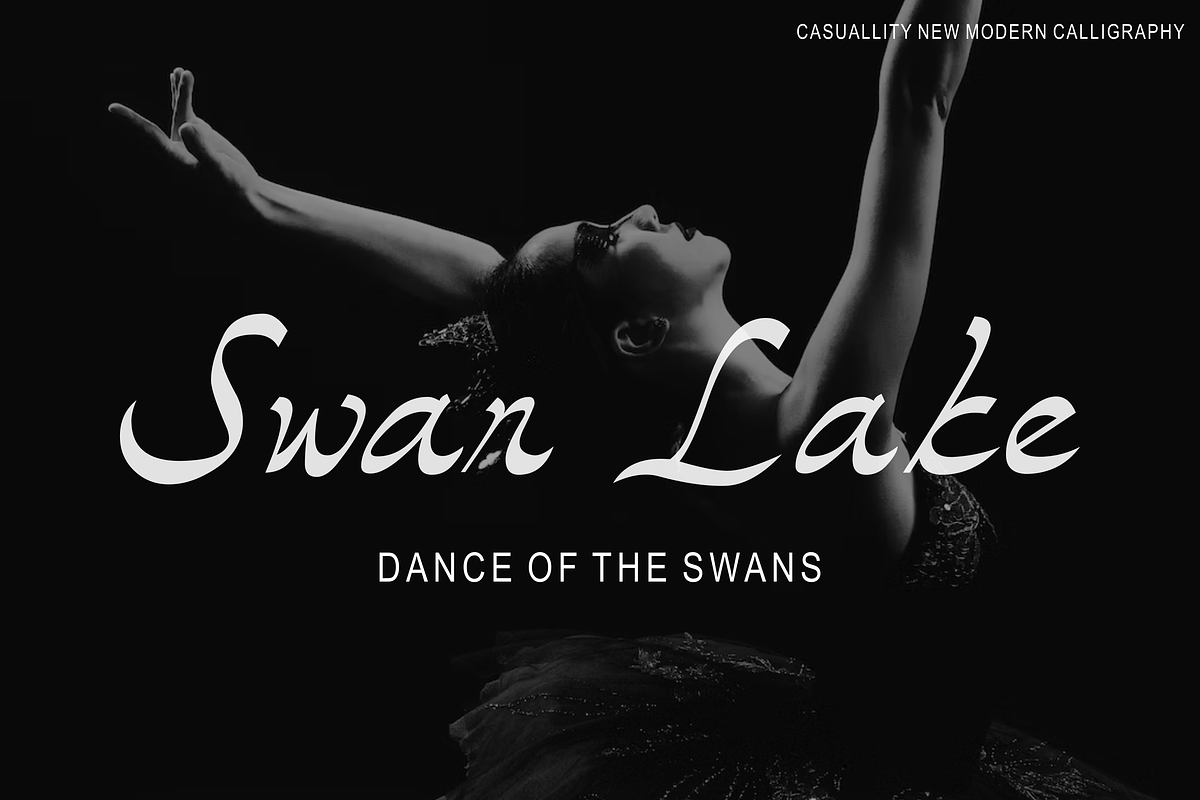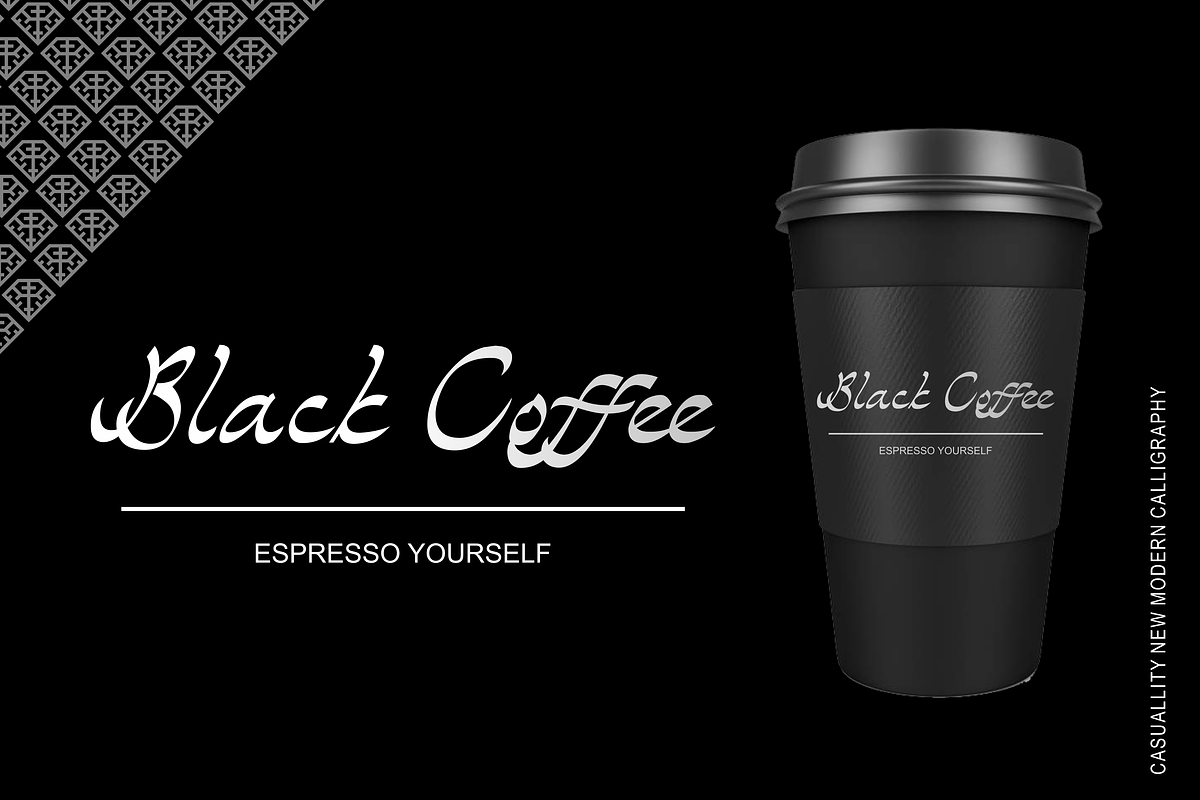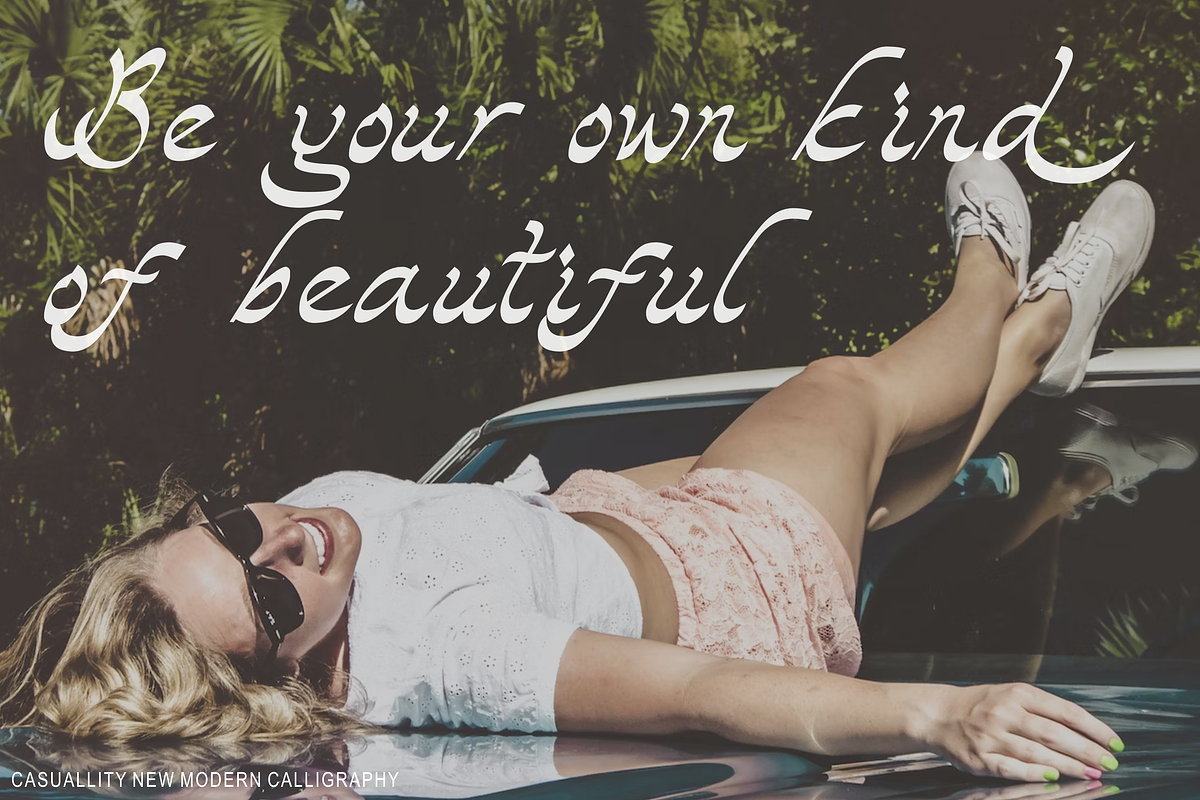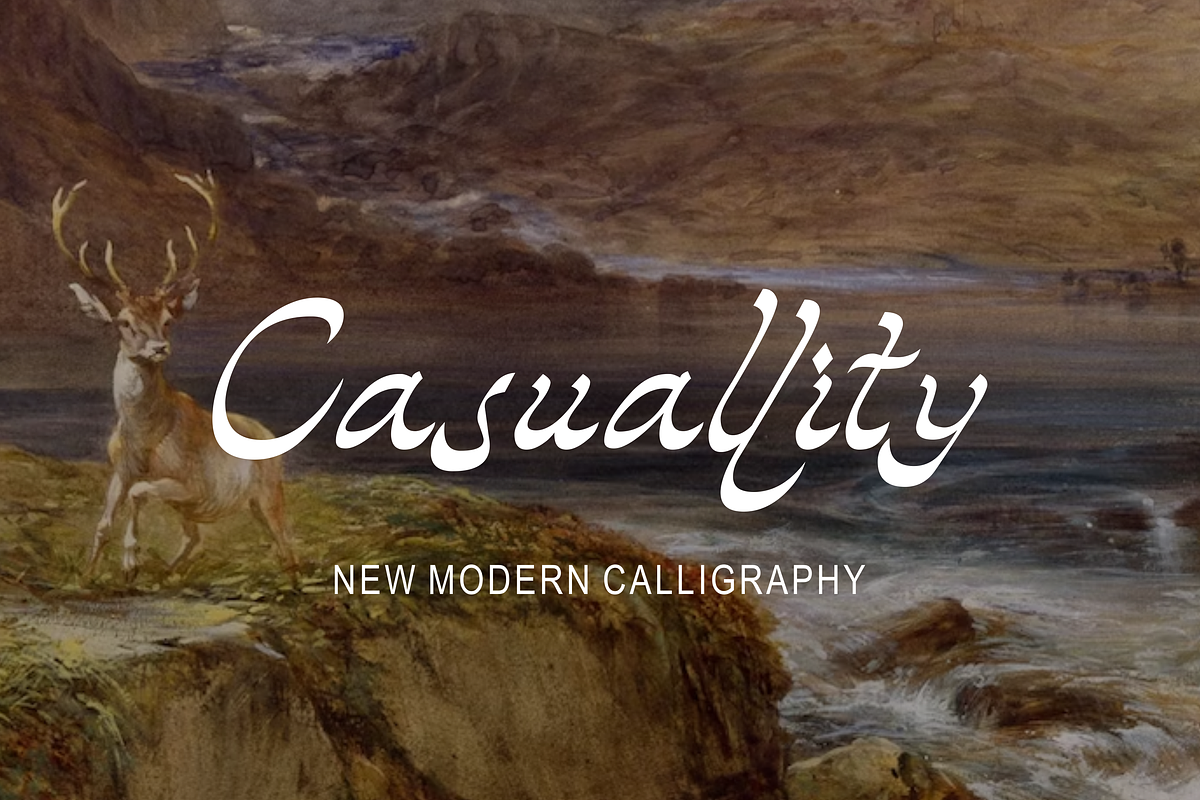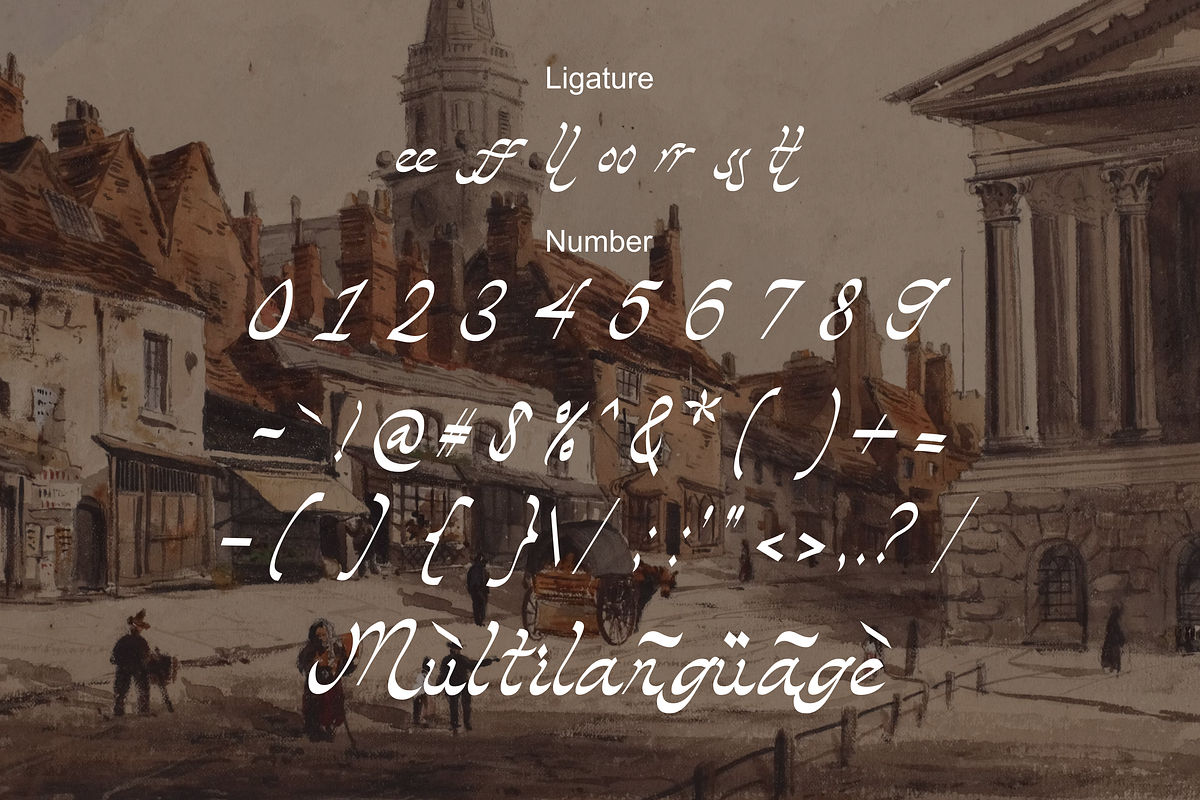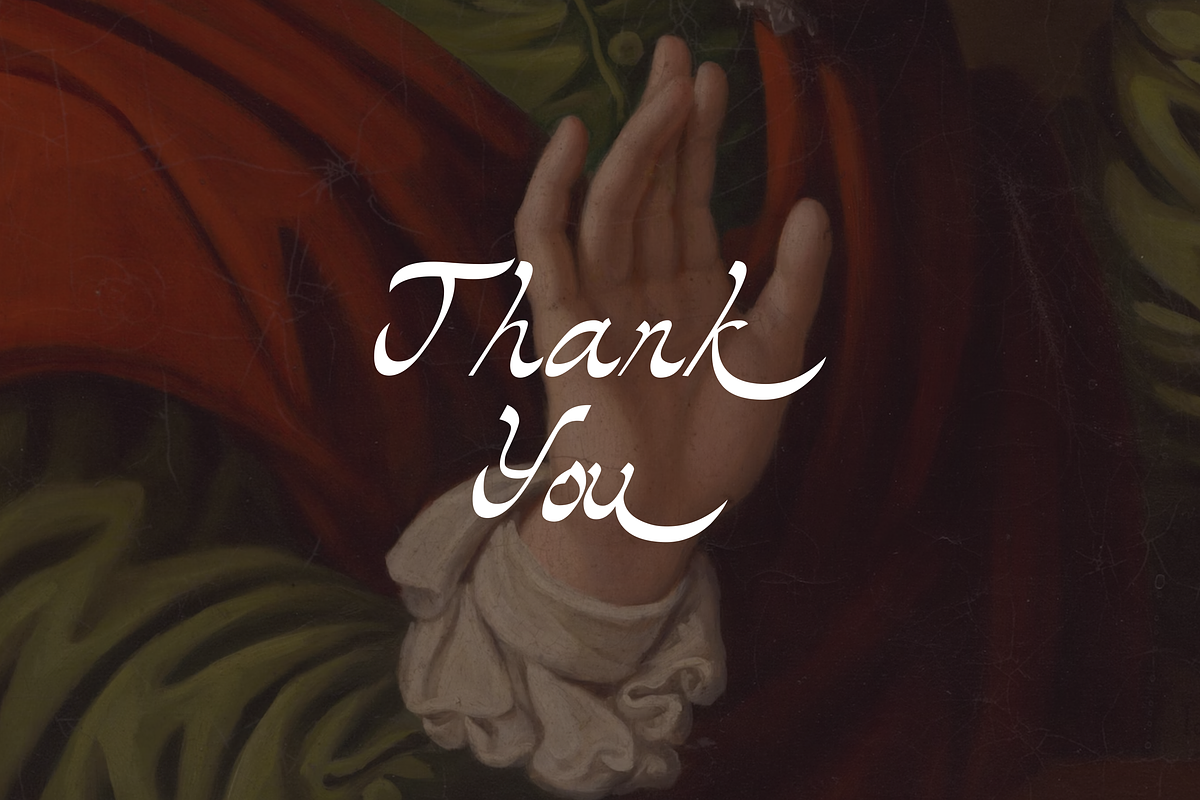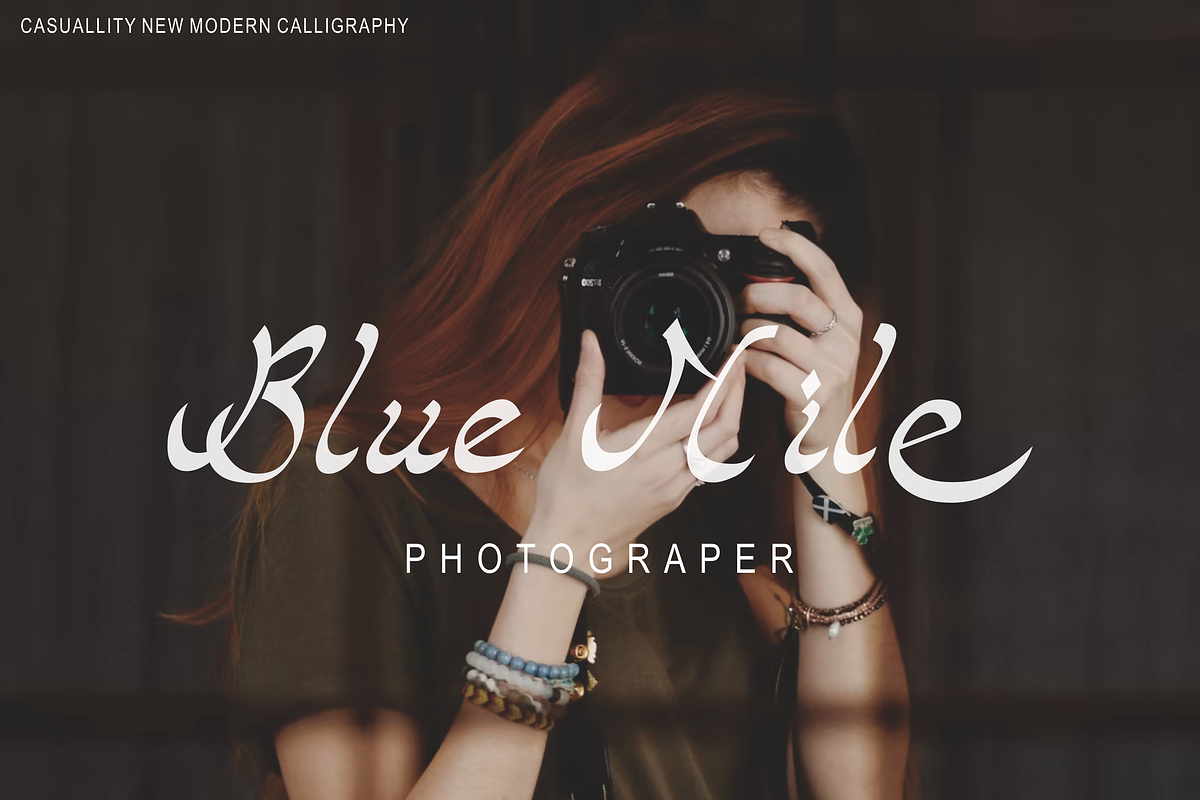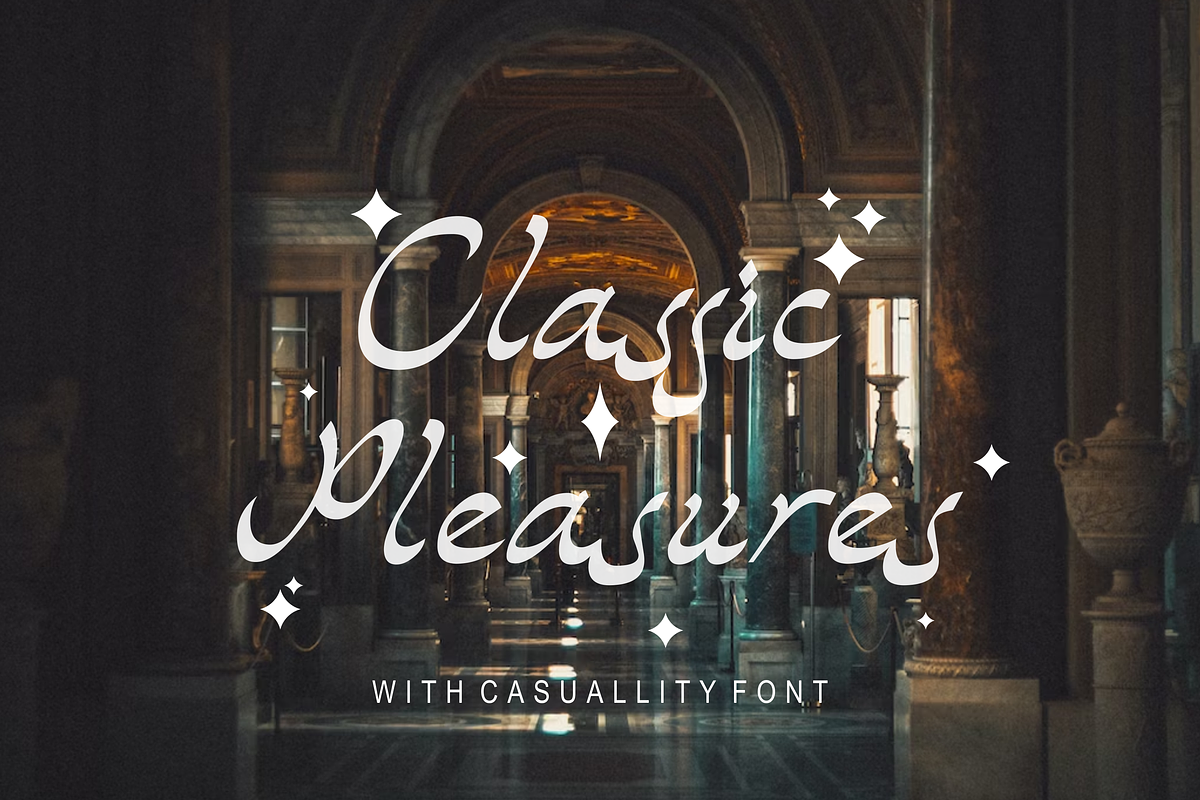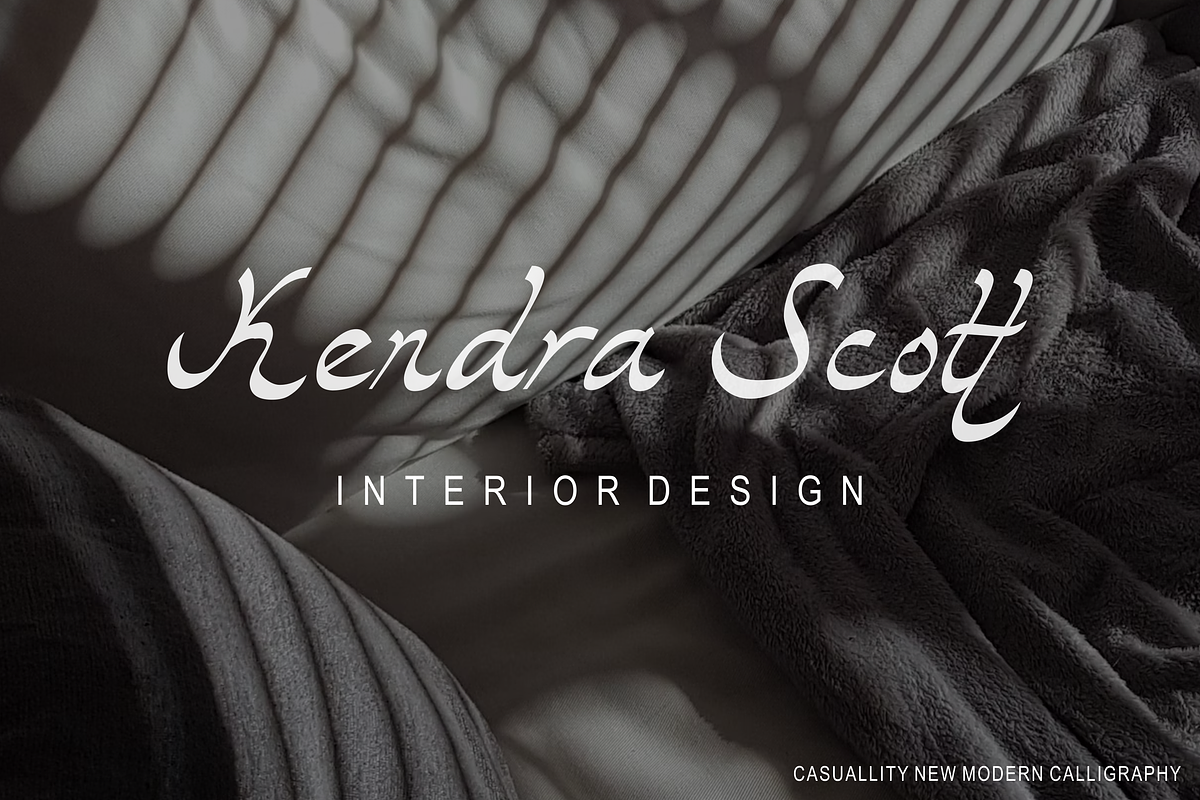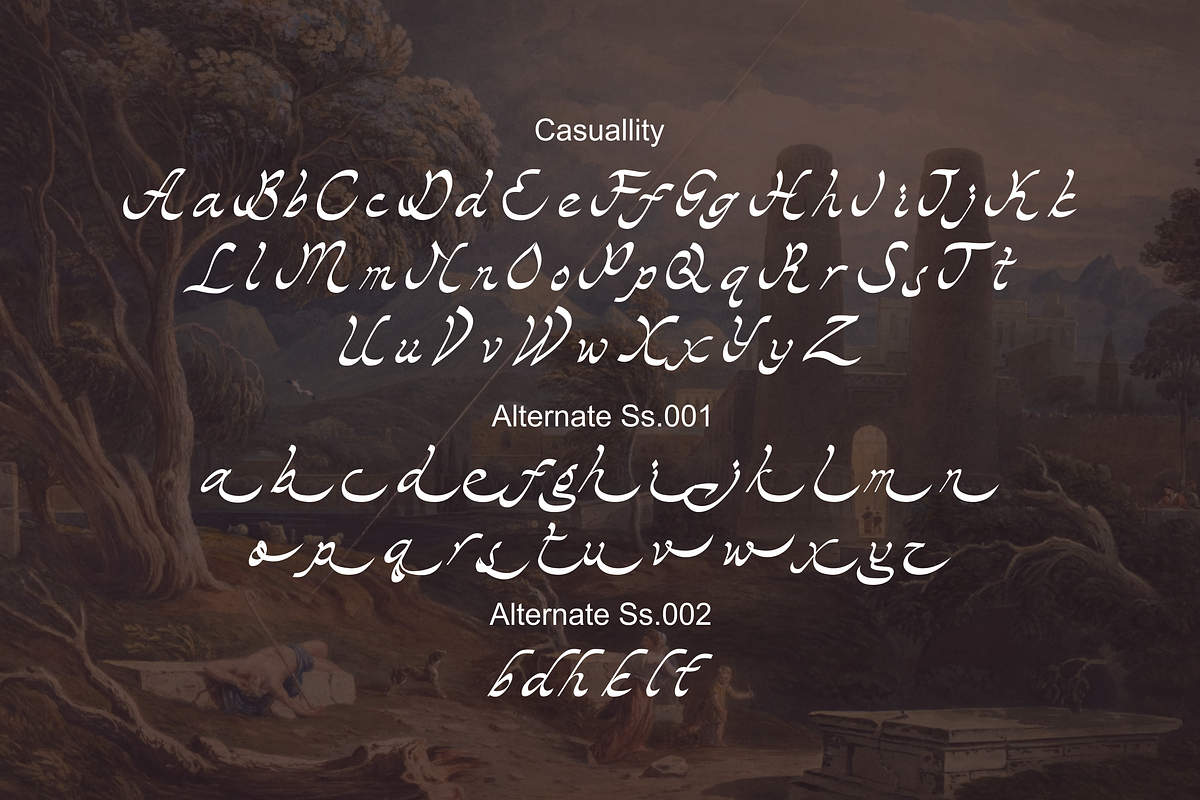
Casuallity
Introducing “Casuallity,” a stunning calligraphy-style font meticulously crafted by hand, designed to infuse elegance and charm into your creative projects. Casuallity Font embodies a perfect blend of fluidity and sophistication, making it an ideal choice for a wide range of design applications, including logo design, branding, book covers, and more.